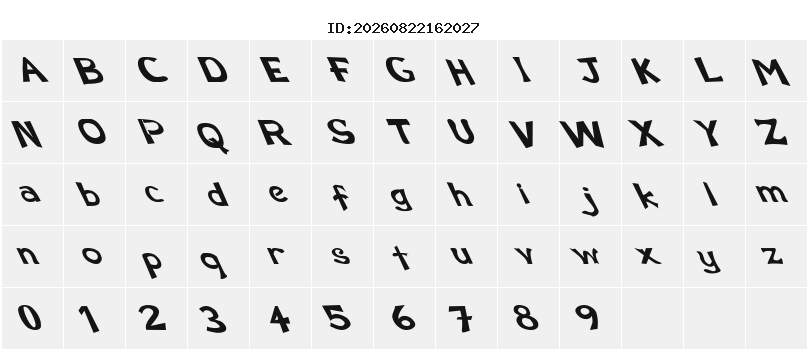
• Font Name: Schwarz Wald Extreme Leftie
• Full Font Name: Schwarz Wald Extreme Leftie
• PostScript Name: SchwarzWaldExtremeLeftie
About Schwarz Wald Extreme Leftie.ttf
Schwarz Wald Extreme Leftie.ttf is a modern, elegant sans-serif font designed for ultimate readability and visual harmony. Perfect for branding, headlines, web design, and print materials.